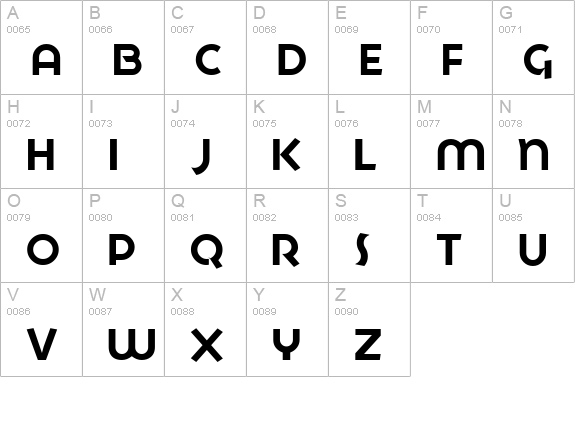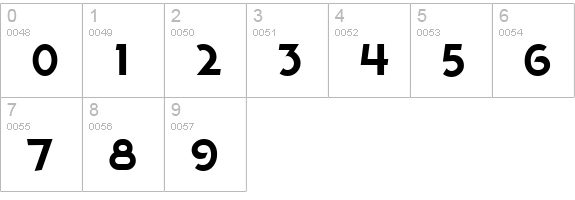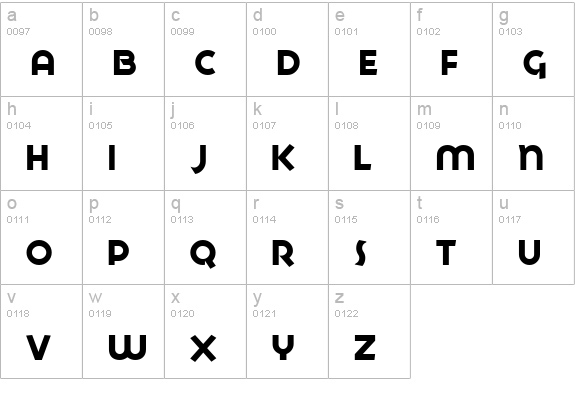
GoyaMedium Font Details
GoyaMedium font is a modern and elegant typeface that exudes sophistication and style. Its clean lines and balanced proportions make it perfect for a wide range of design projects, from branding to editorial layouts. The GoyaMedium font is versatile and easy to read, making it ideal for both print and digital applications. What sets GoyaMedium apart is its unique blend of classic and contemporary design elements, giving it a timeless appeal that will elevate any project. Whether you're looking to create a sleek and professional look or add a touch of refined elegance to your designs, GoyaMedium font is the perfect choice. And the best part? GoyaMedium font is available for free download at FontsMarket.com. So you can add this stunning typeface to your font library without breaking the bank. Don't miss out on the opportunity to enhance your designs with the beauty and versatility of GoyaMedium font.